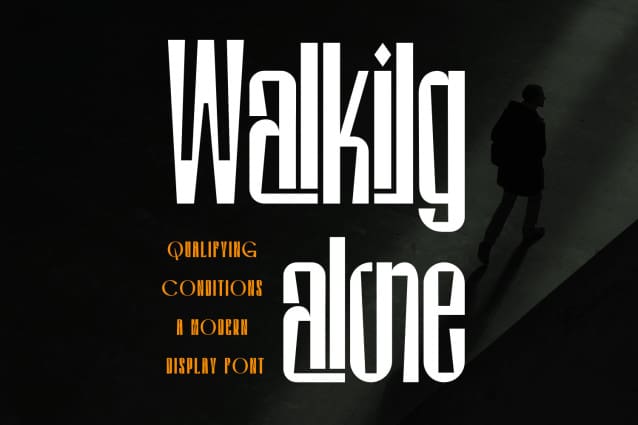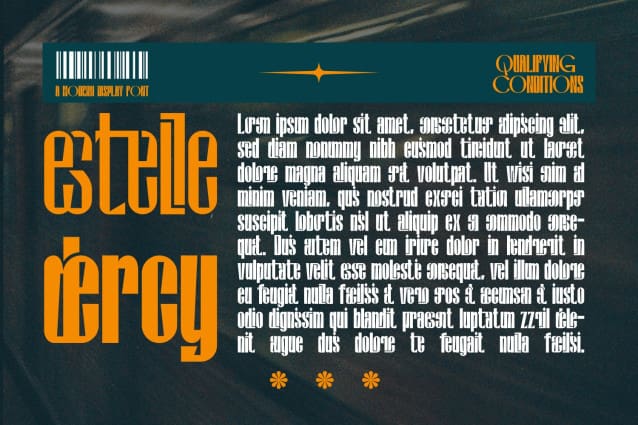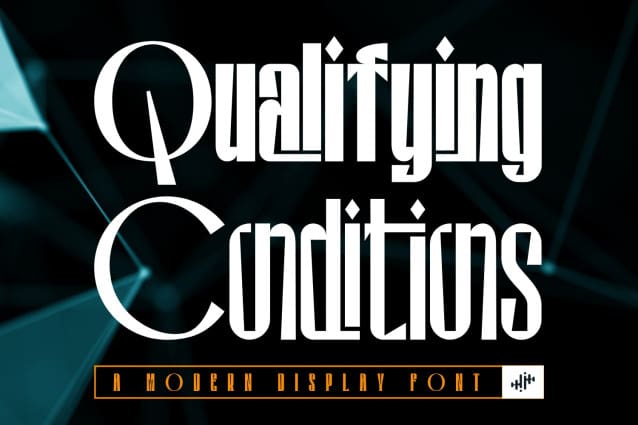
Qualifying Conditions Font
Qualifying Conditions Font is an extra condensed grotesque, made with its own unique character and form of typeface. It’s a massive font that will grab the attention. It’s gonna look great on a magazine spread, cover or a poster in large print. This font showcases refined letterforms that merge minimalist design elements with a contemporary flair, making it ideal for a diverse array of projects. From web design and digital interfaces to branding materials and editorial layouts.
Qualifying Conditions was built with OpenType features and includes 100 ligatures, alternate, numbers, punctuation, and it also supports other languages.